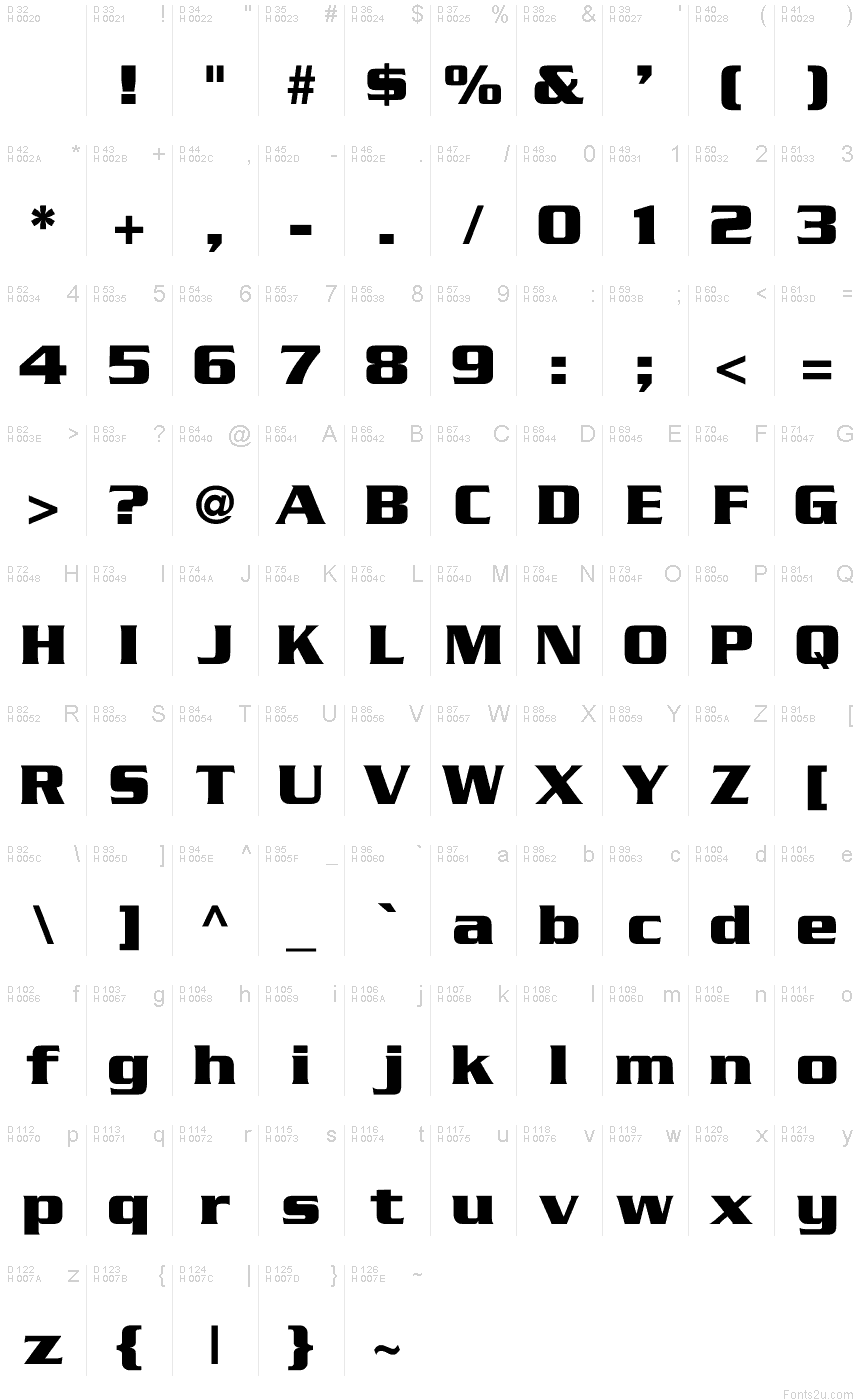
Babylon5
Babylon 5 font by Fantazia Fonts and Sounds is a free futuristic display typeface with thick, blocky forms and tight curves that feel straight out of a retro sci‑fi title card. Its hefty silhouettes, squared shoulders, and abrupt terminals create a strong, mechanical rhythm that reads clearly even at a distance, while the subtle curves keep it from feeling cold or rigid.
Using Babylon 5, this free font shines on posters, gaming logos, movie titles, event branding, tech banners, and bold social graphics where you want loud, cinematic impact. The dense letterforms pack a punch in uppercase, and pairing it with a light, neutral sans for small body text keeps layouts balanced. Run it large with generous spacing to let those chunky shapes and crisp edges really command attention.